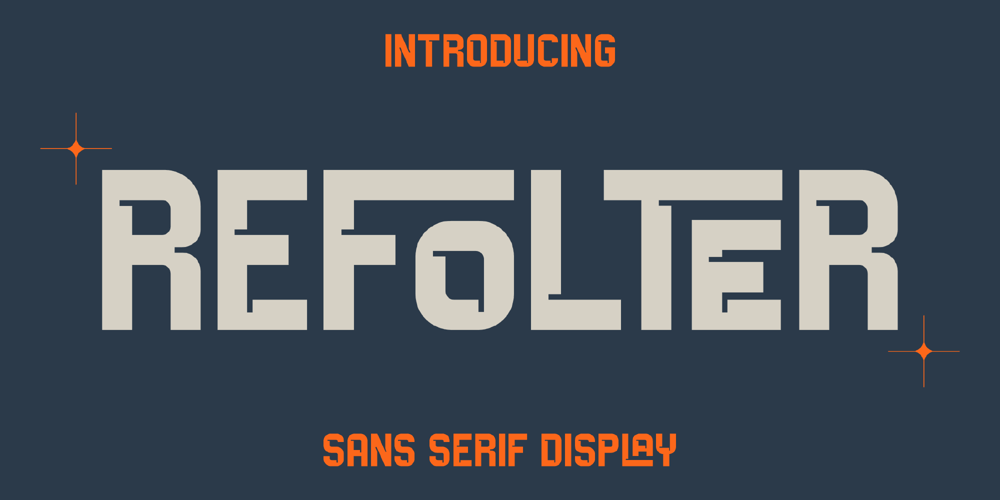
Refolter Font Family was designed by Heru Utama Putra and published by Letterena Studios. Refolter contains 2 styles and family package options. Refolter is a unique sans serif display font. This typeface is perfect for adding a bold and luxurious look to your logos, book or movie titles, fashion brands, magazines, clothes, lettering, quotes, and so much more.